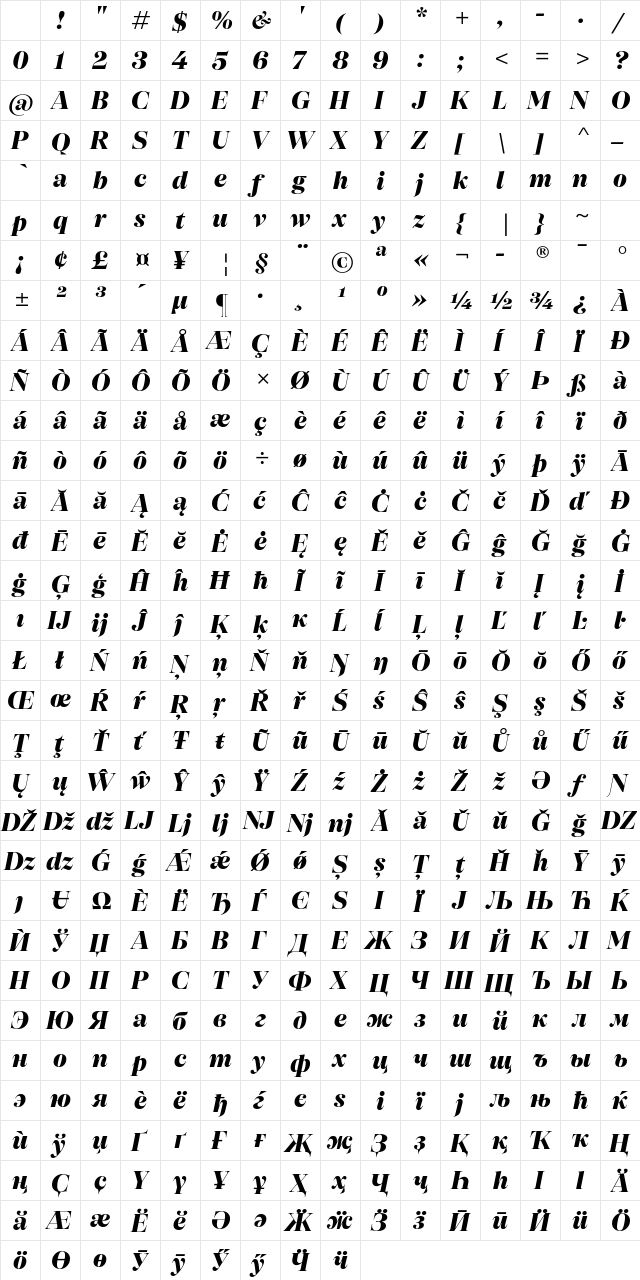
Complete SFT Schrifted Serif TRIAL D D ExBd Italic glyph index. Displaying only characters natively supported by SFT Schrifted Serif TRIAL D D ExBd Italic font.
SFT Schrifted Serif TRIAL D D ExBd carries the refined structure of traditional serif typography, with bracketed terminals and considered proportions that communicate credibility and craft. The slanted form adds forward momentum and visual energy. Its bold stroke weight gives it real presence on the page.
Who designed the SFT Schrifted Serif TRIAL D D ExBd Italic font?